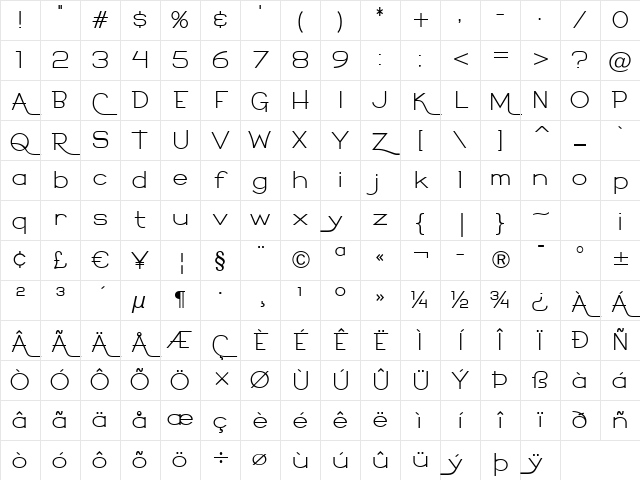
Calamity Teen BTN Regular
Calamity Teen BTN Family
Calamity Teen BTN Regular
Design Context for Calamity Teen BTN
Calamity Teen BTN is a composed and adaptable typeface that performs quietly and consistently across a wide range of design contexts.
Pro Tip: Use Calamity Teen BTN in both headline and body roles to test its range before committing to a single application.